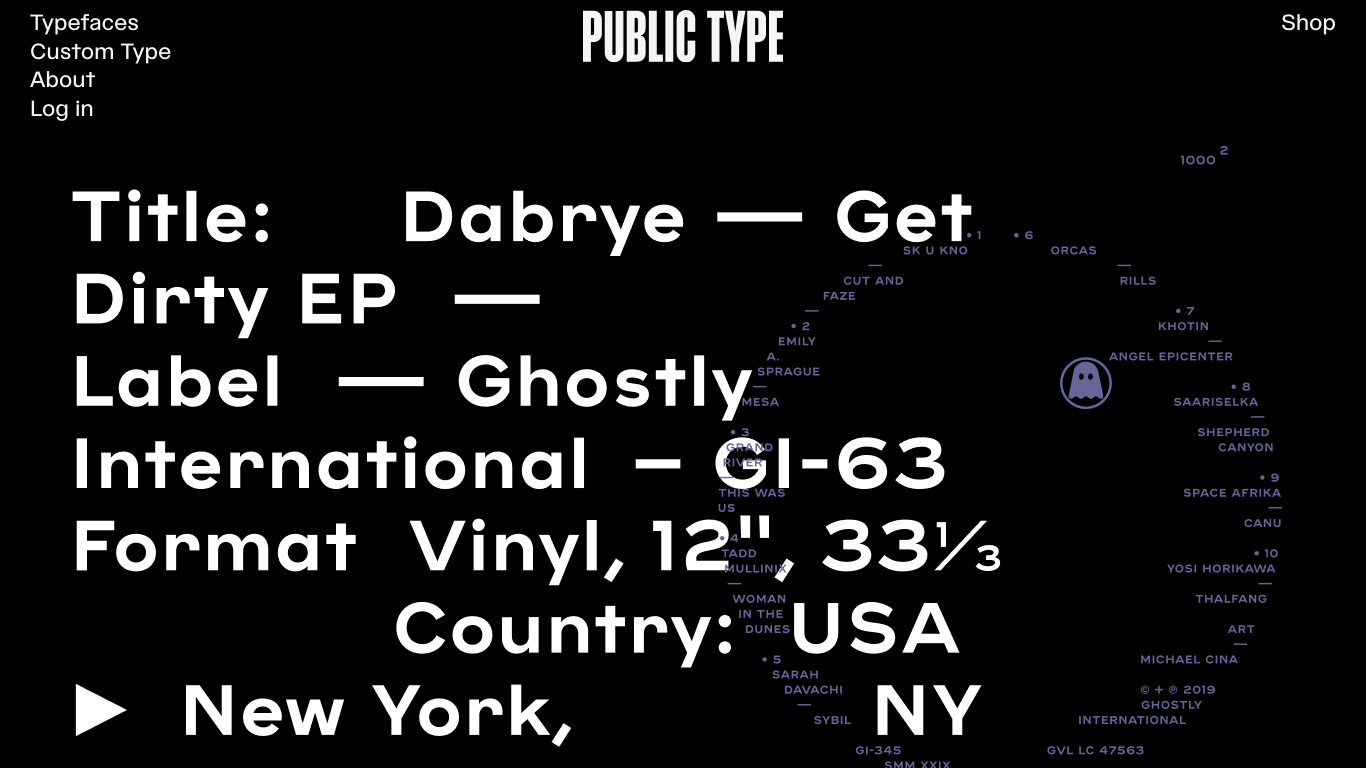
Public Type
2019
Public Type is an independent collective and type foundry launched in 2019 by a group of typeface and graphic designers—including Karl Engebretson, Matt Desmond, Stefán Kjartansson, Shiva Nallaperumal, Michael Cina, Lauren Graycar, and Harsh Patel—who share a boundless curiosity for expressive and experimental forms. They maintain a growing retail catalog featuring distinctive typefaces such as Hardcore (inspired by Cold War–era graphic systems), Chrysalis, Cina GEO, Contro, Plakate, Yamantaka, and Stadt. Public Type also offers custom font design for clients of all sizes and contributes to the global type community through workshops, knowledge sharing, and design scholarships. What sets the foundry apart is its collaborative, research-driven model—bringing together diverse voices to craft bold, experimental typographic forms that communicate with energy and intentionality.